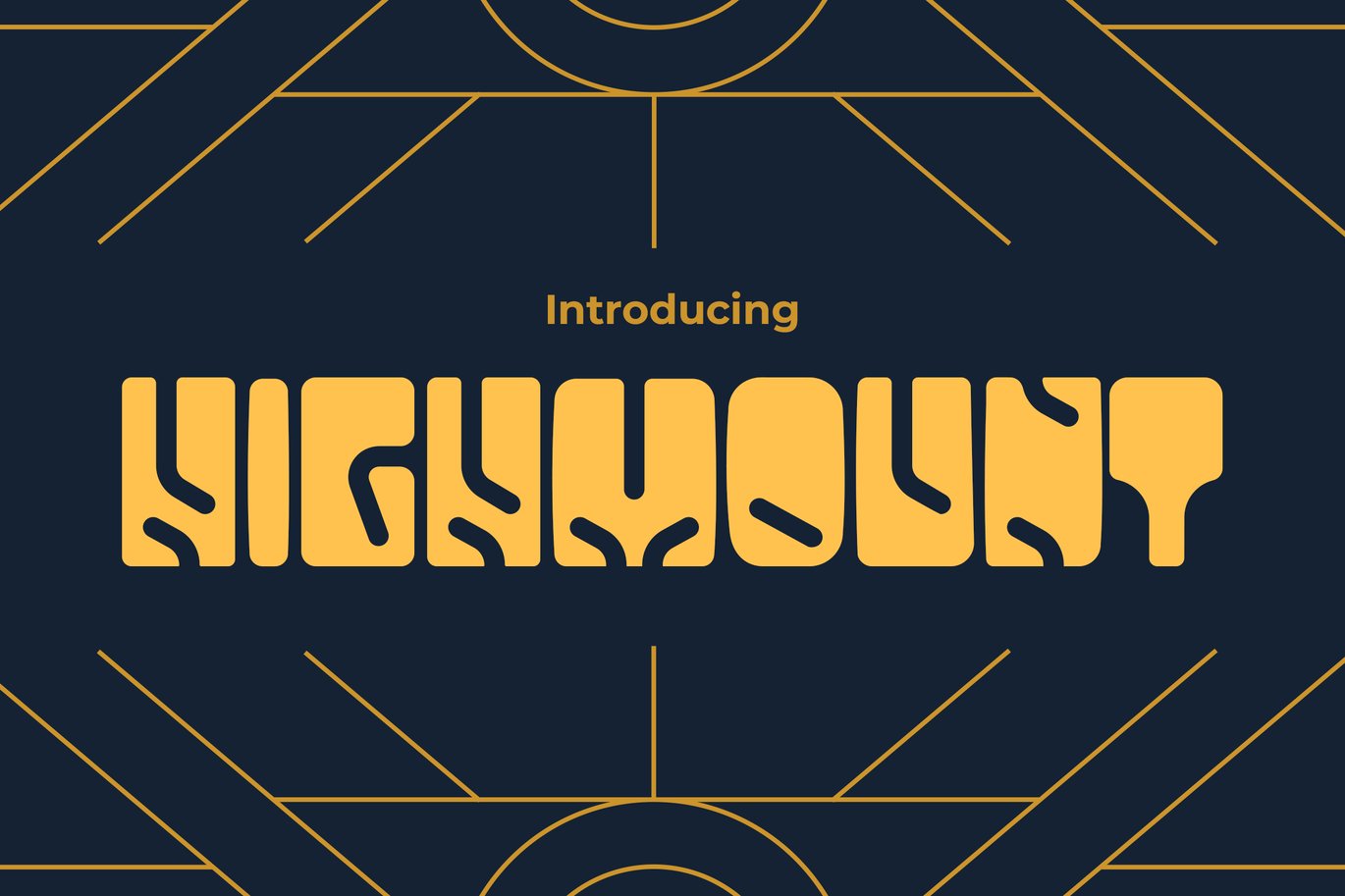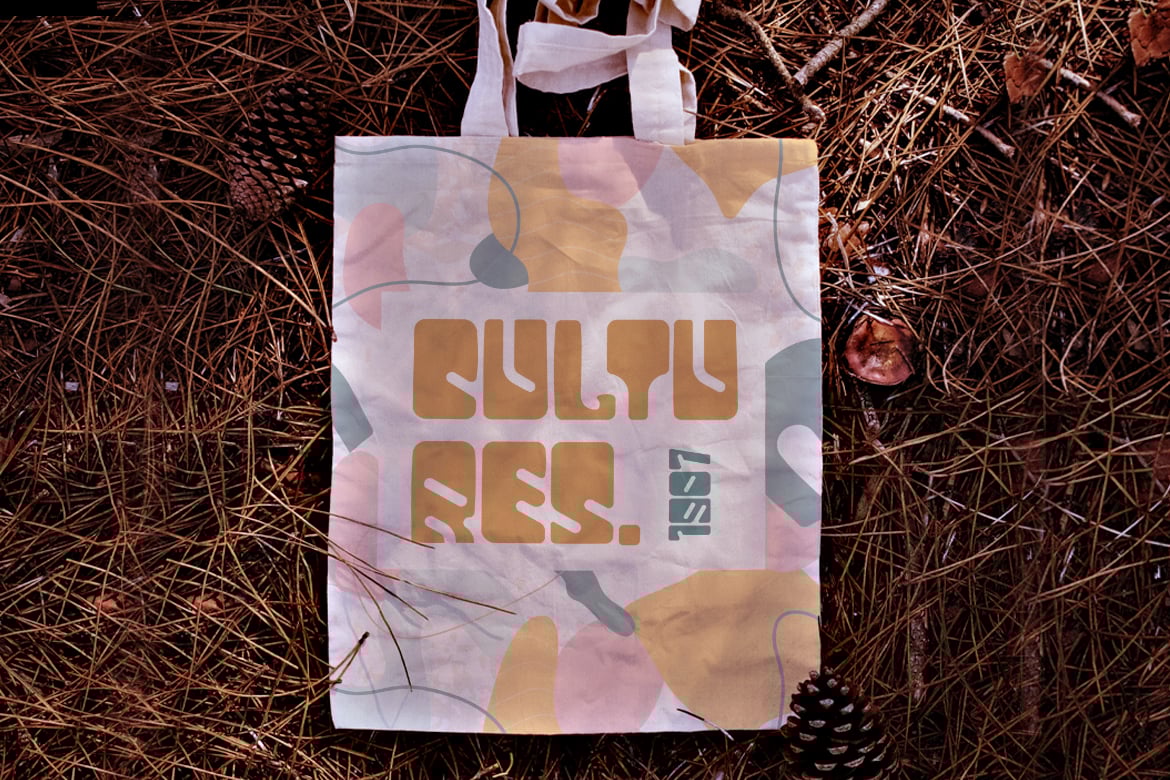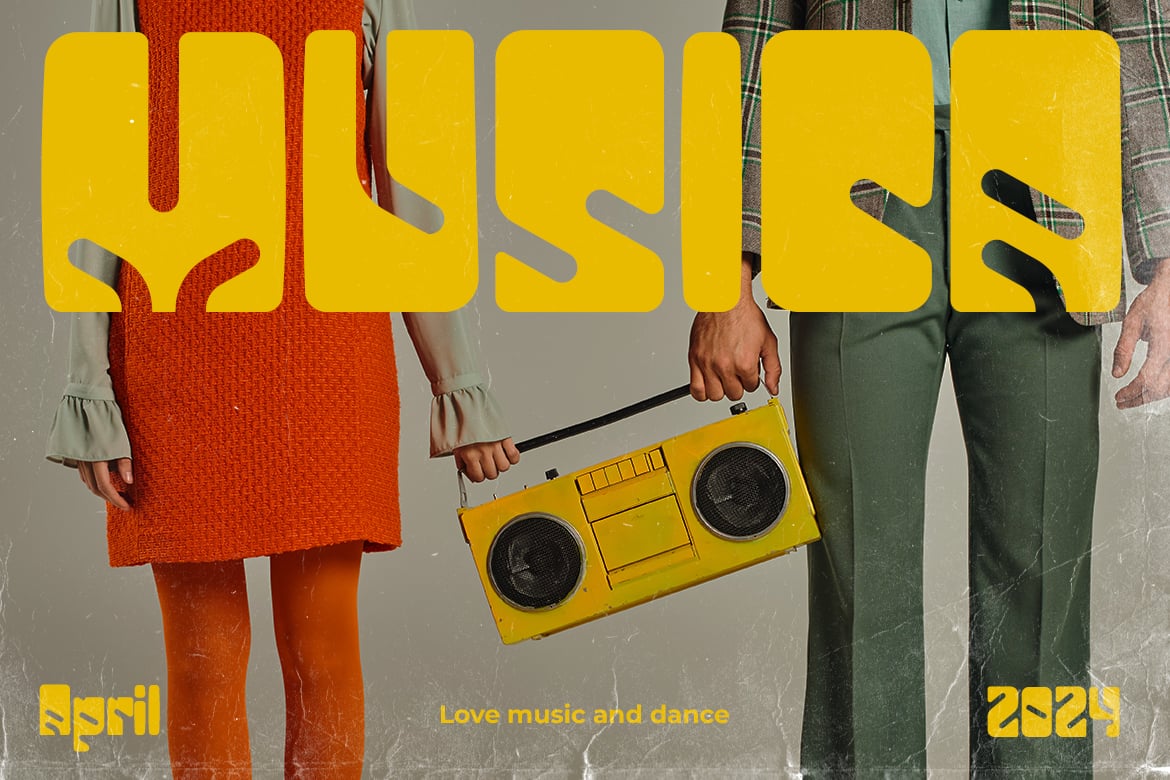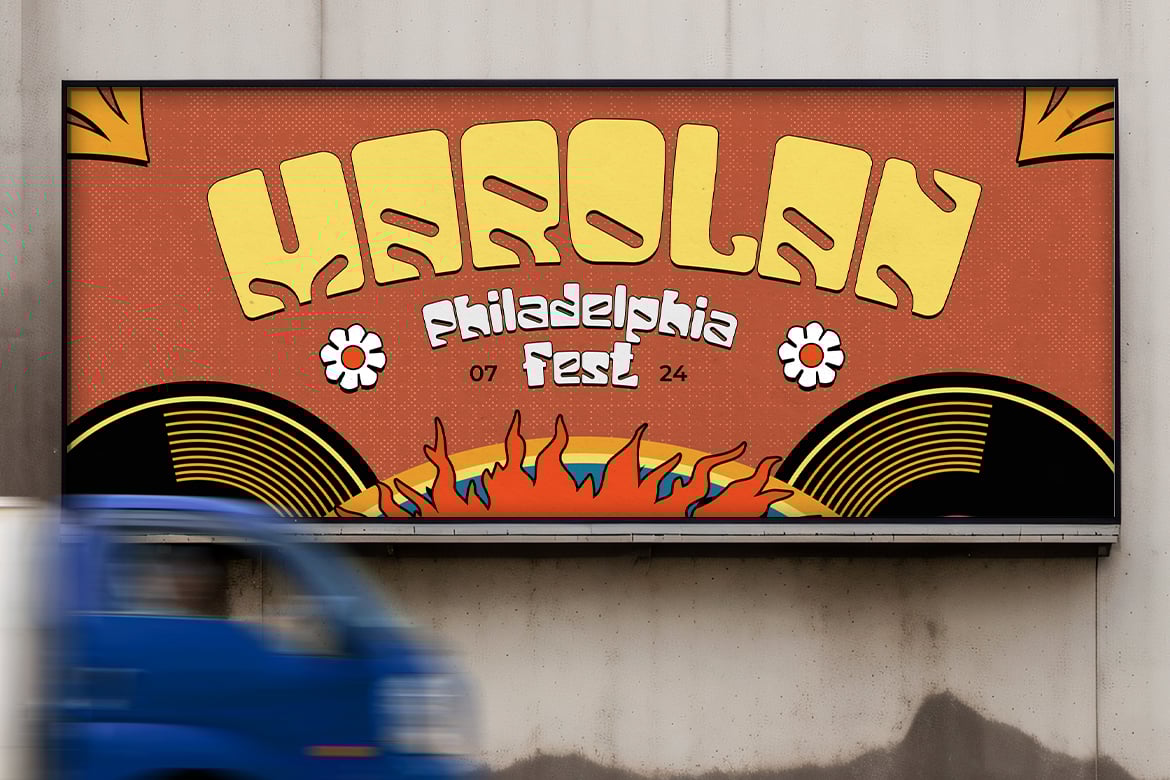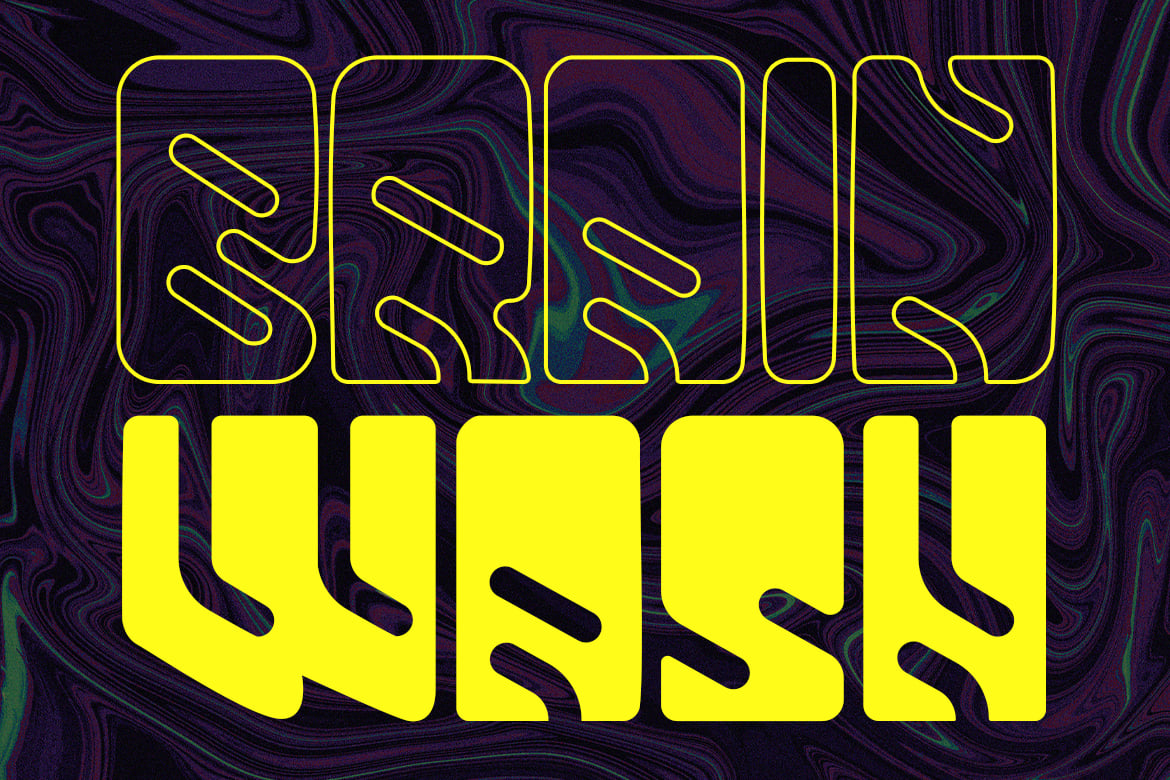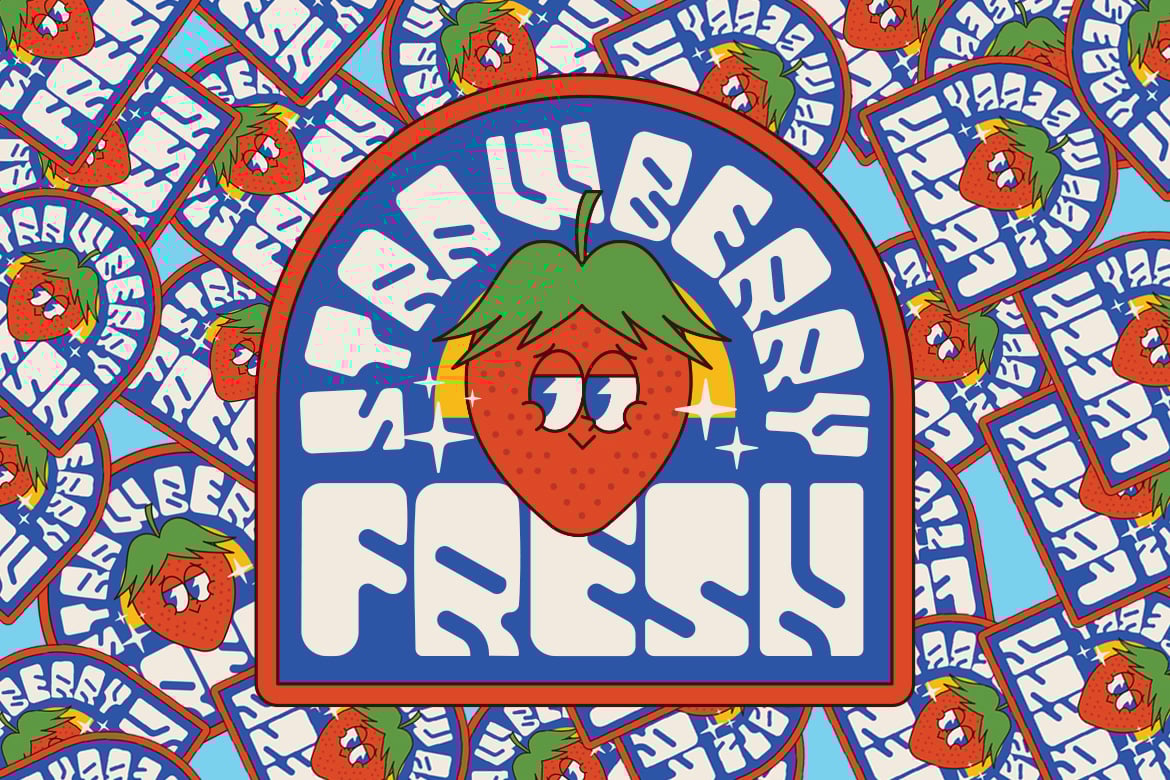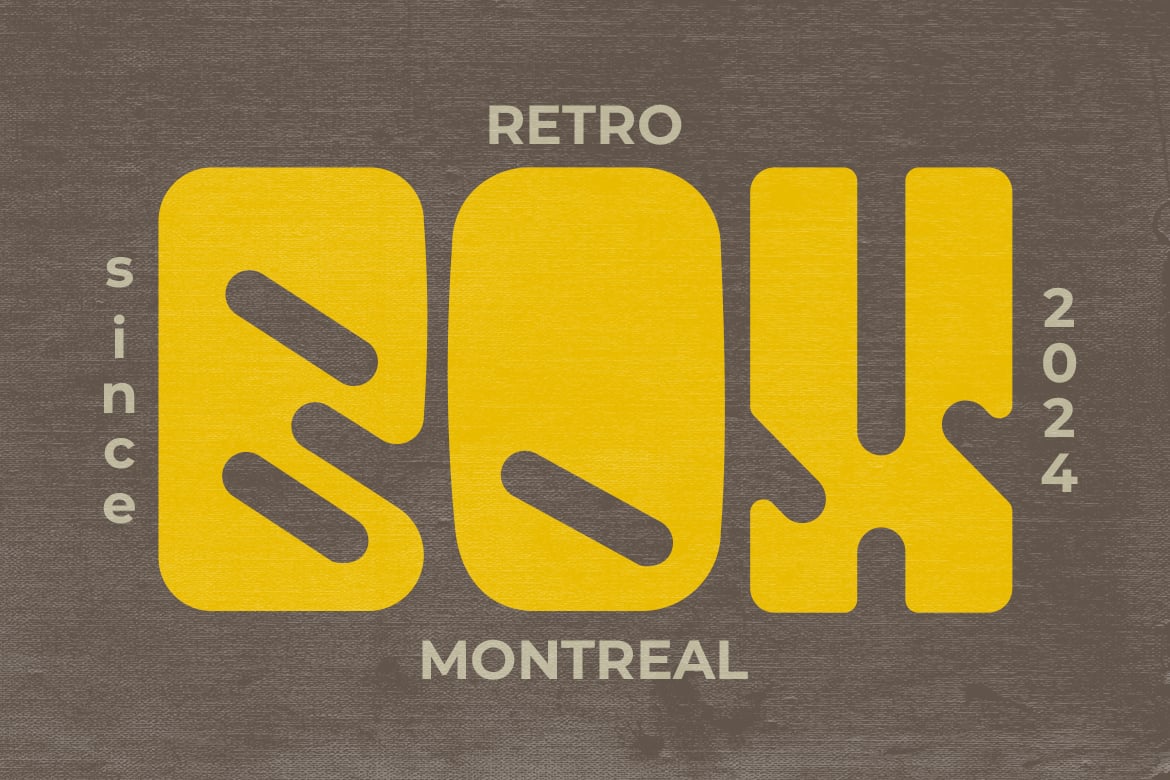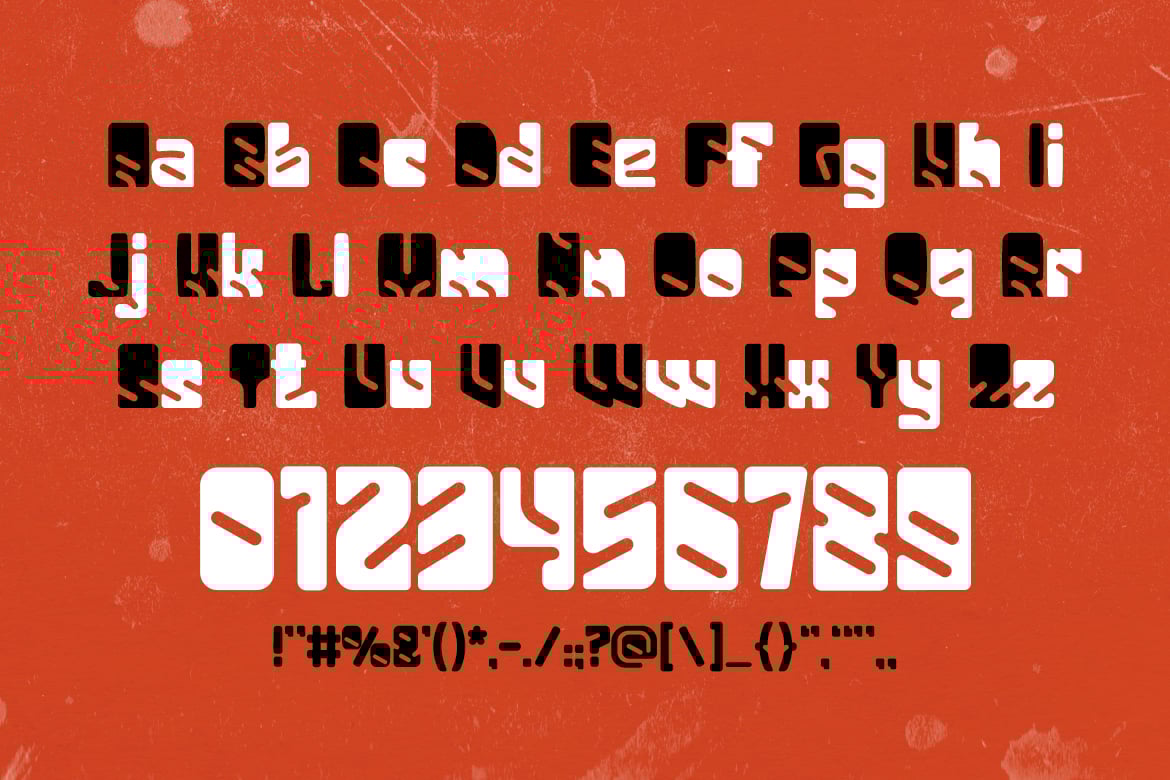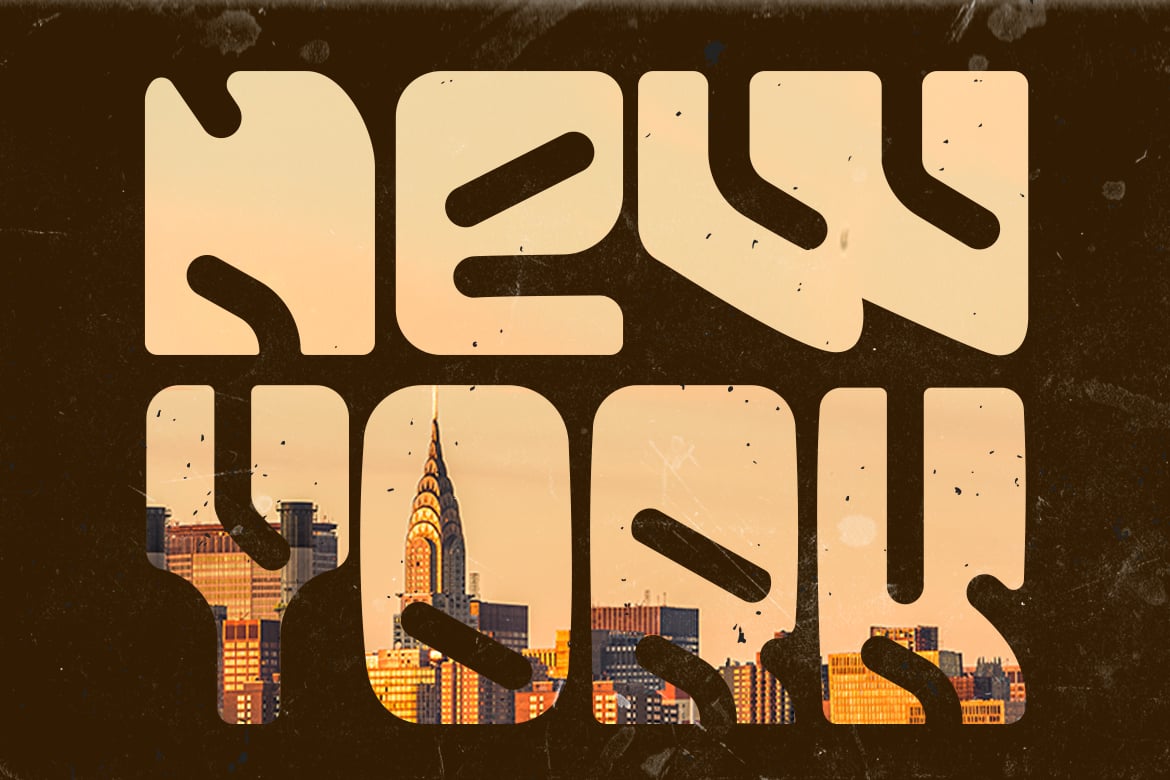
Retro Font – Highmount
Highmount is a bold and eye-catching decorative display font, perfect for making a statement with its abstract shapes and retro futuristic feel. Whether you’re designing posters, event invitations, or playful packaging, Highmount brings energy and uniqueness to any project. Its abstract curves and lines create a dynamic visual experience, making it ideal for themes related to music, fashion, or fun retro themes.
Applications:
Best suited for poster design, music covers, fashion advertising, and creative branding. It thrives in designs where bold visuals are needed, such as events, festivals, or unique brand identities.